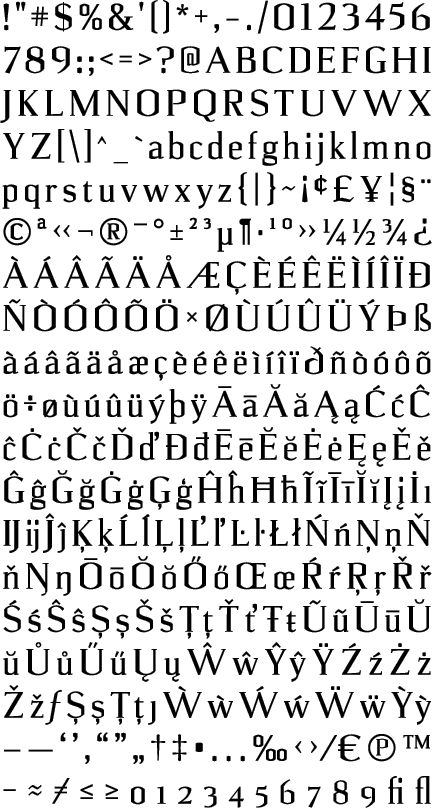
ulian
Ulian is a crisp, uniquely individual display face from Typodermic—a fresh departure in an entirely different direction. Ulian combines the distinctive straight sides of blackletter with features of more current types; the curves, serifs and thick/thin treatment of Romans, and the wide flattened curves of squared geometric types (popular in the late 1960s through the 1970s and now in revival).
Ulian’s squared glyphs make efficient use of space, resulting in a condensed font without the typically “compressed” look. The vertical stems are more or less uniform in weight, leaving the horizontally-aligned curves to emphasize stress. The italics feature a cursive treatment on diagonals, yet the straight stems of the normal font are retained.